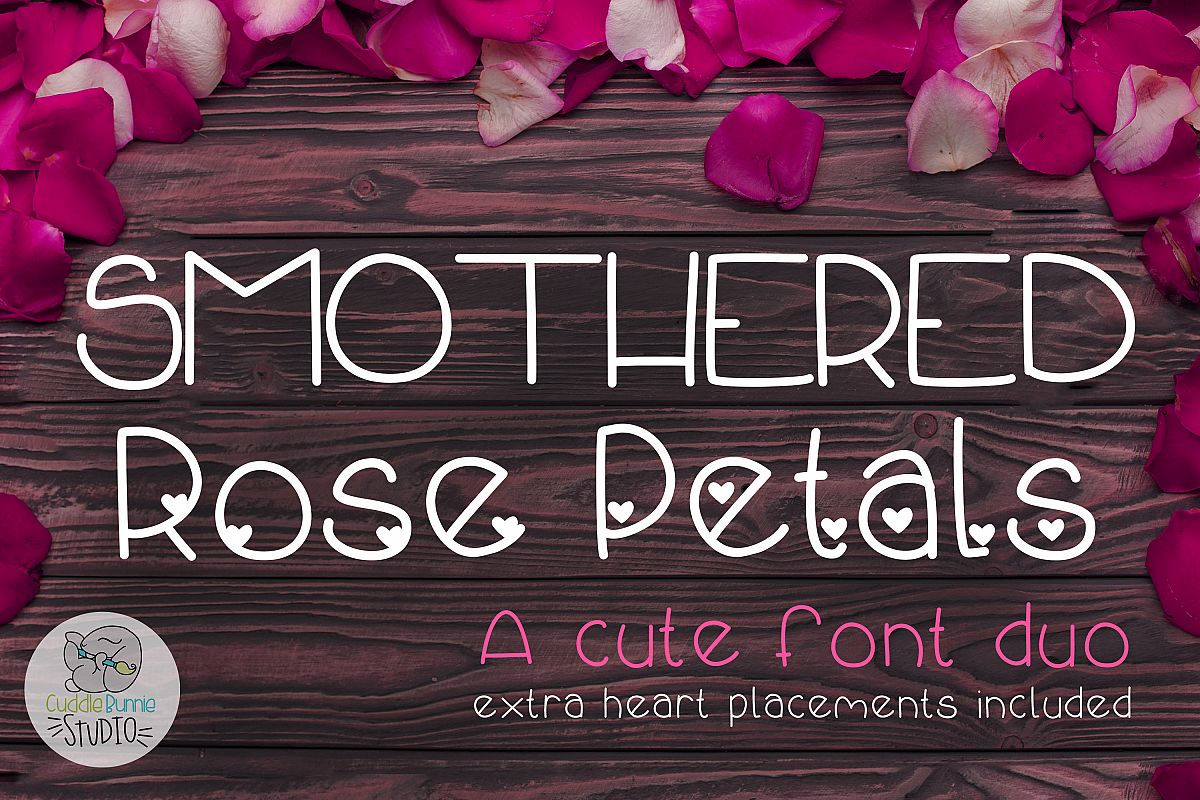
Smothered Rose Petals | A Cute Valentine Font Duo
This is the Cutest Font i've ever created! ( I say that because this is only my second font!) - I'm still learning so please be aware of possible more nodes then normal.
This first Duo font comes with a plain version as well as added hearts and even more positions of the hearts in the glyphs section!